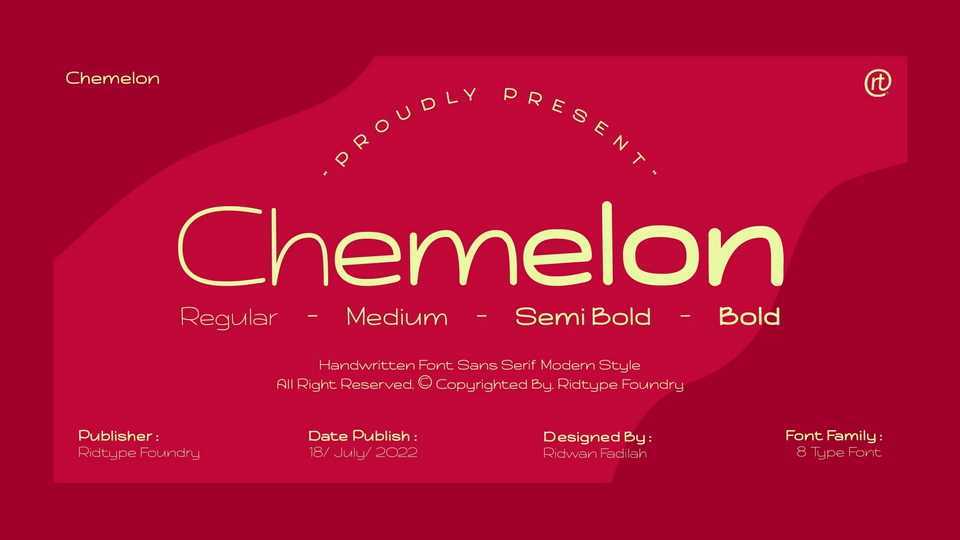
Download Chemelon font, a handwritten typeface with a modern style that carries a sense of humor yet elegance. With its clean look Chemelon font can be used for various purposes, such as text, logos, headings, and branding.
Designer: Ridwan Fadilah